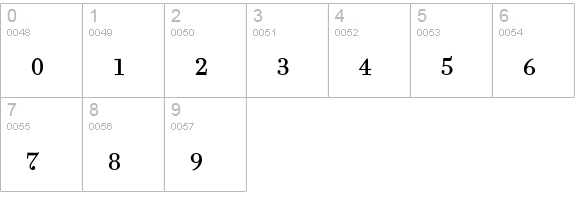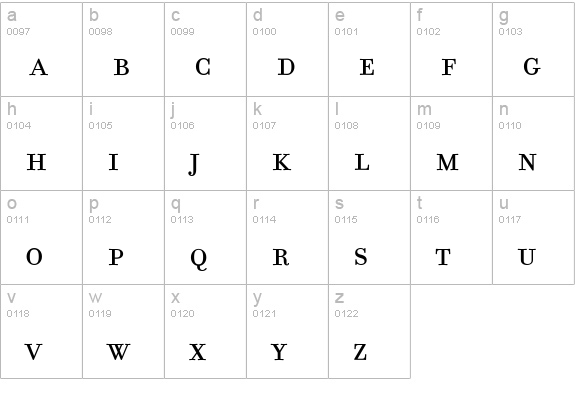
FilosofiaSmallCaps Font Details
FilosofiaSmallCaps font exudes elegance and sophistication with its slender and timeless design. Perfect for adding a touch of class to any project, this font features small caps that bring a unique and refined aesthetic to your text. What makes FilosofiaSmallCaps font even more appealing is that it is available for free download at FontsMarket.com. Now you can elevate your designs with this exquisite font without any cost. Whether you're working on invitations, branding materials, or editorial layouts, FilosofiaSmallCaps font is sure to make a statement and leave a lasting impression. Download it today and experience the beauty and versatility of this stunning typeface.